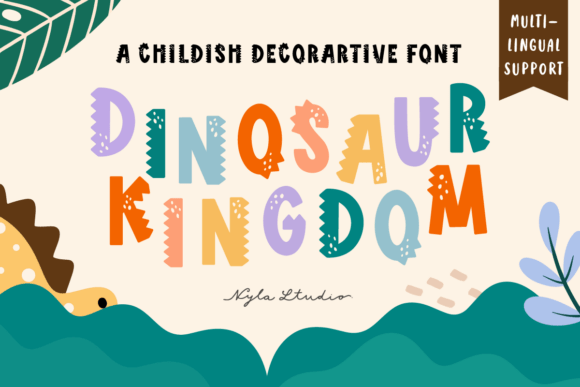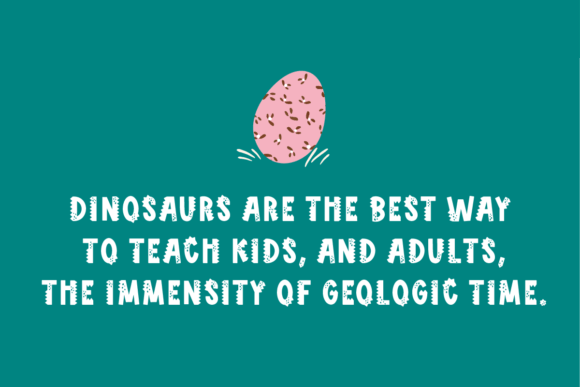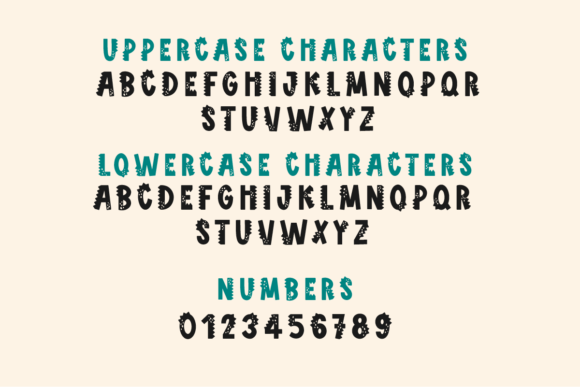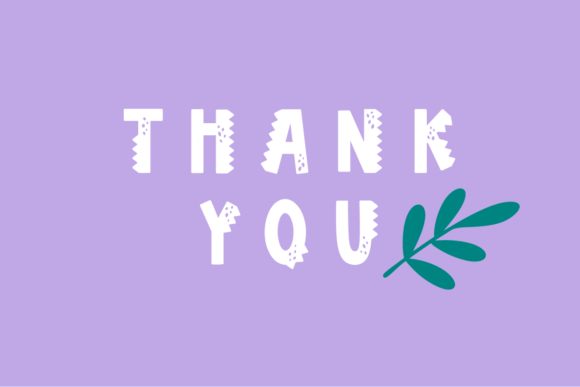
Dinosaur Kingdom Font
Dinosaur Kingdom is a playful decorative font with dinosaur style. Perfect for lovely projects, shirts, lively designs, invitation cards, mugs, stickers, playful quotes, creating posters, logos, greeting cards, packaging, decorating the illustration and so much more!